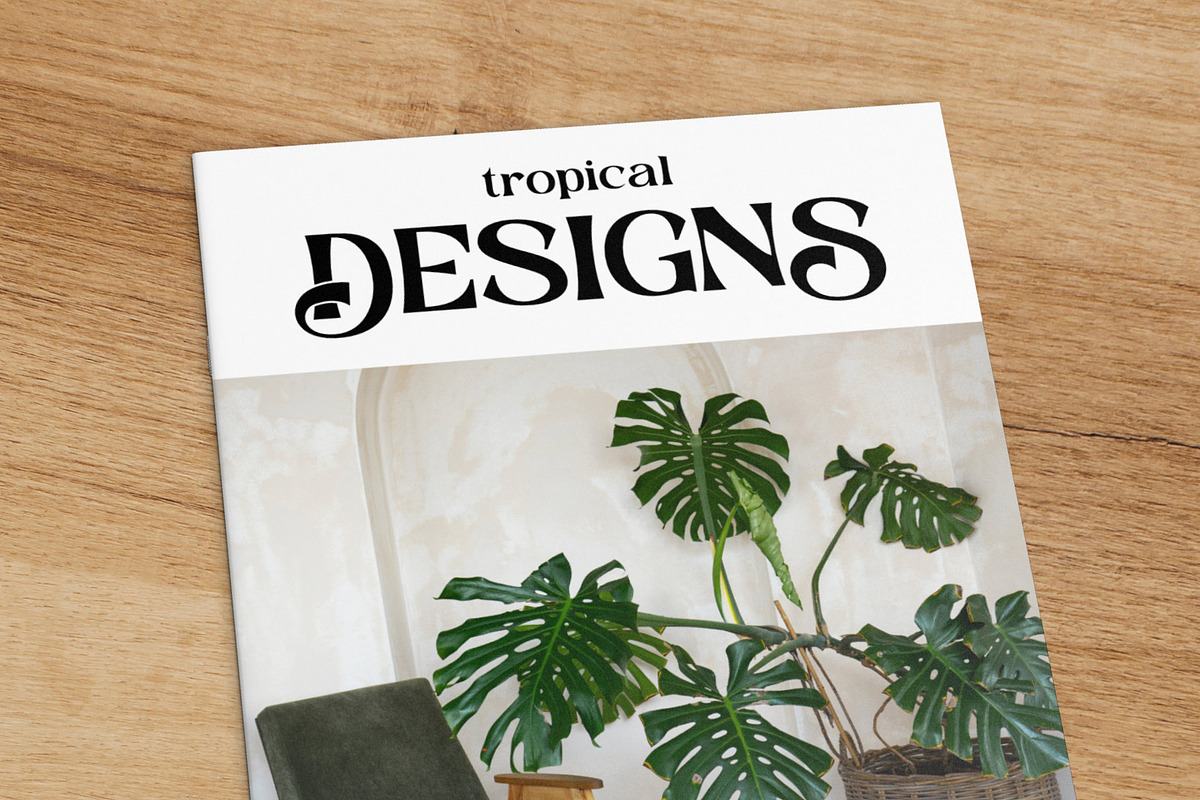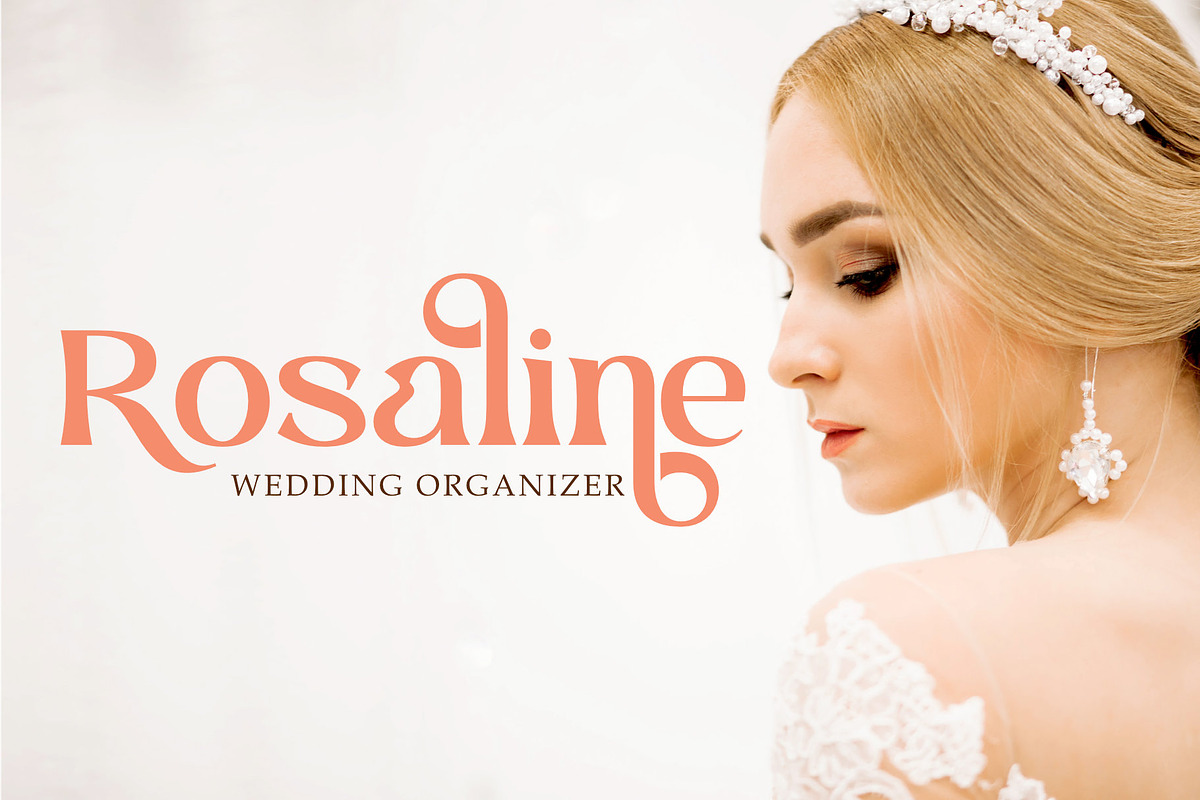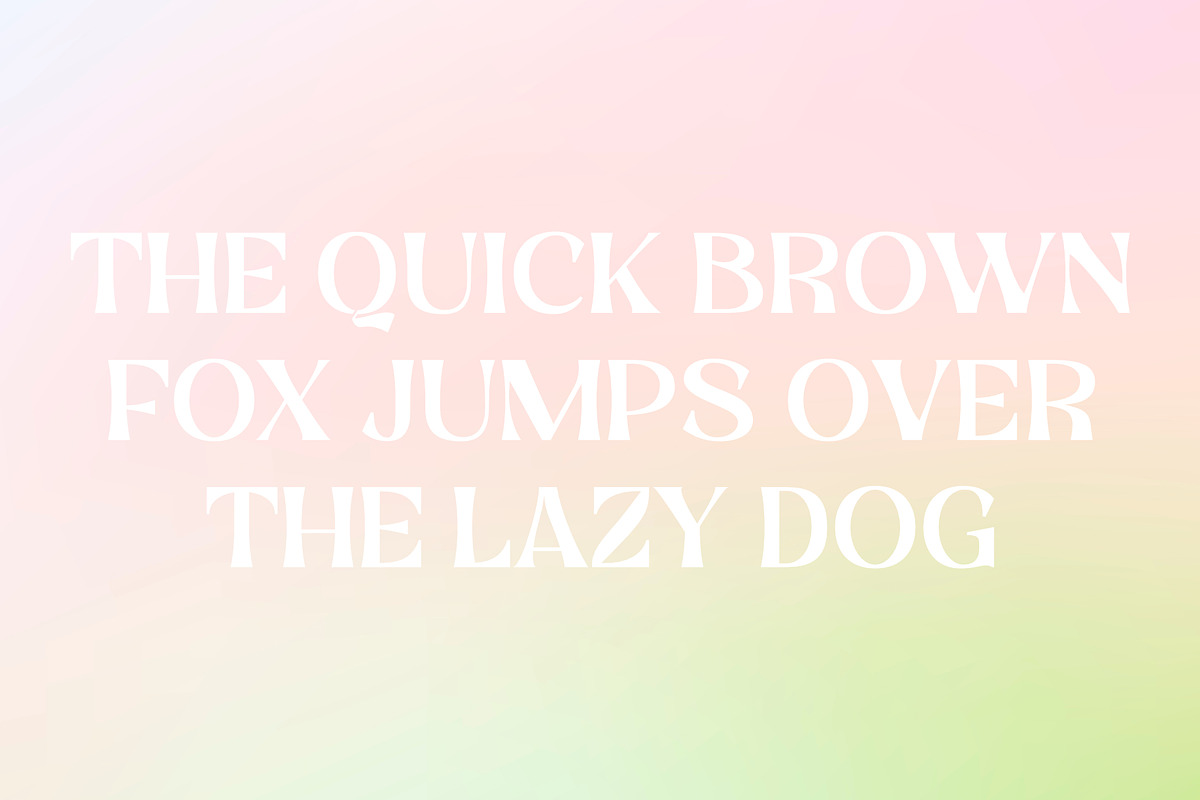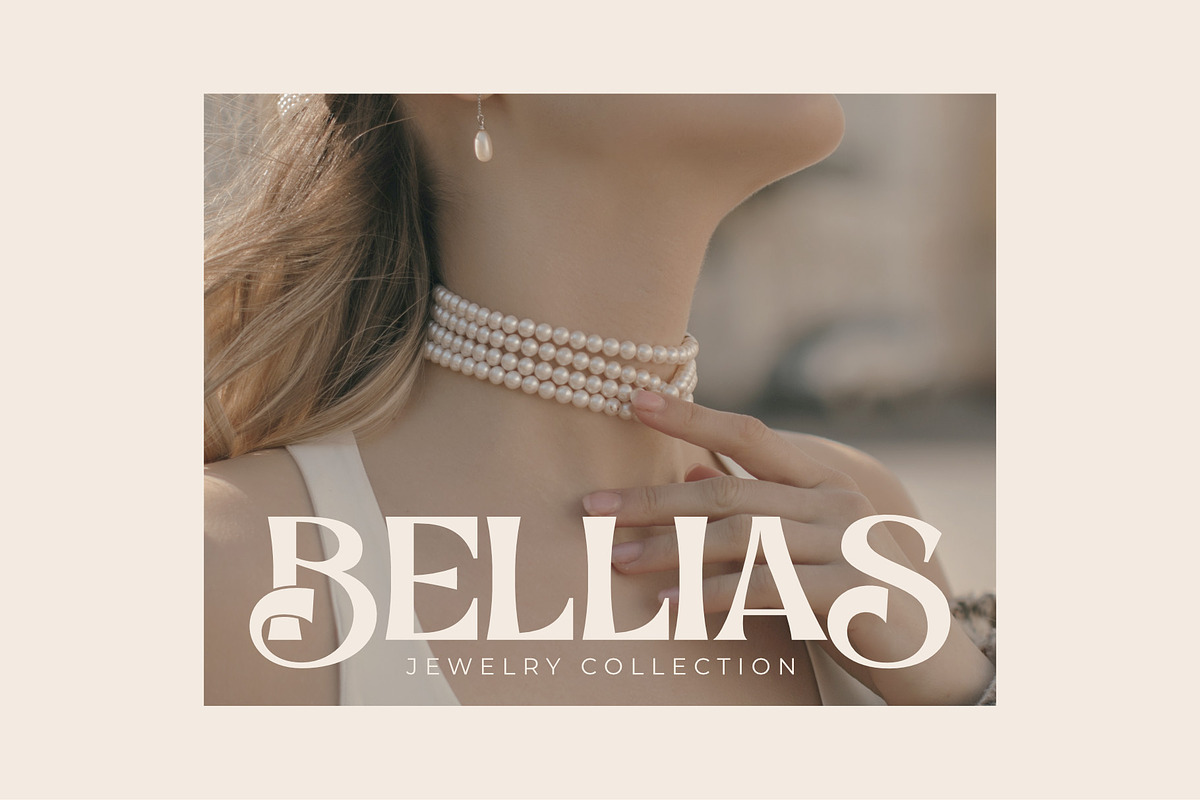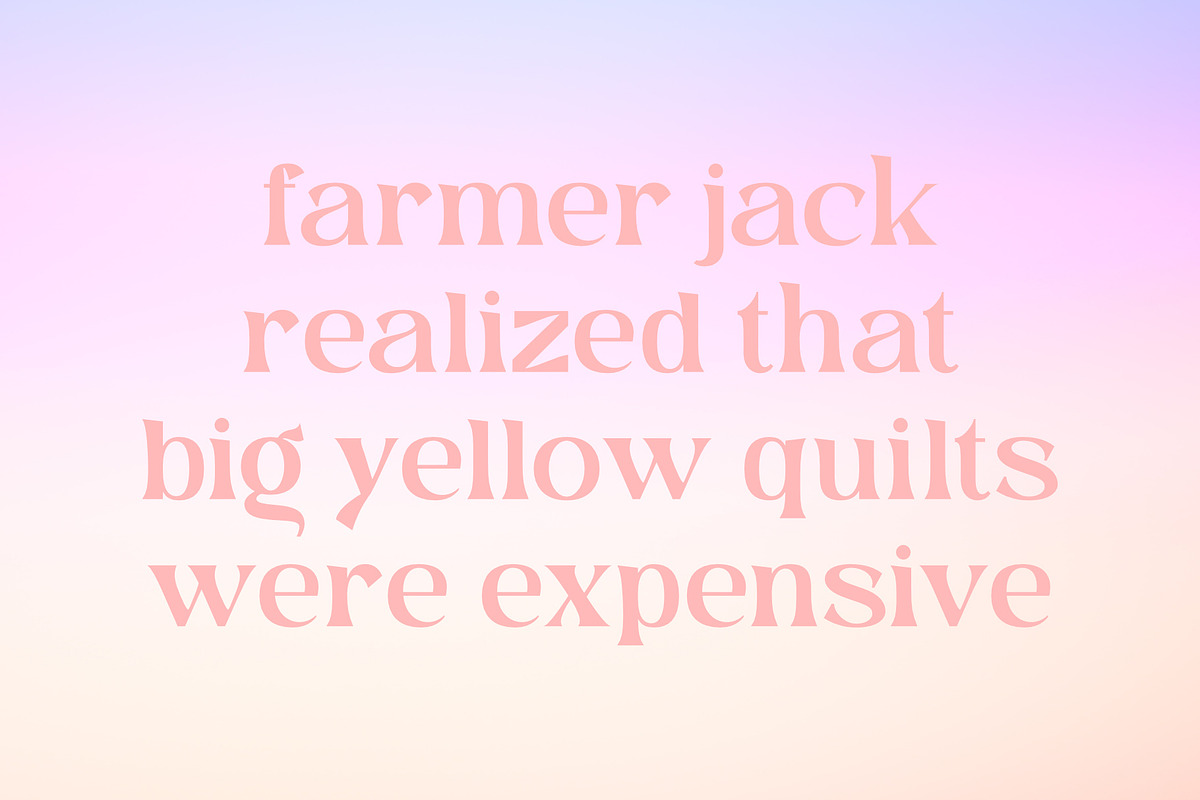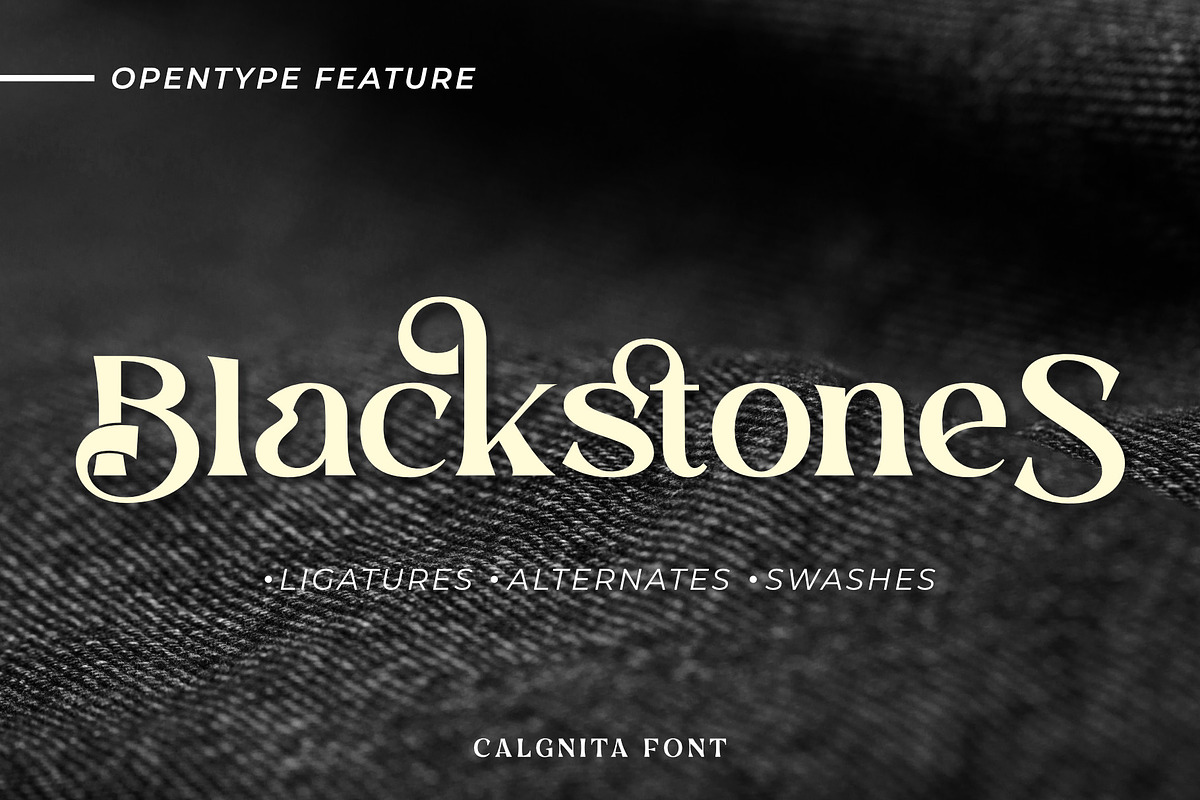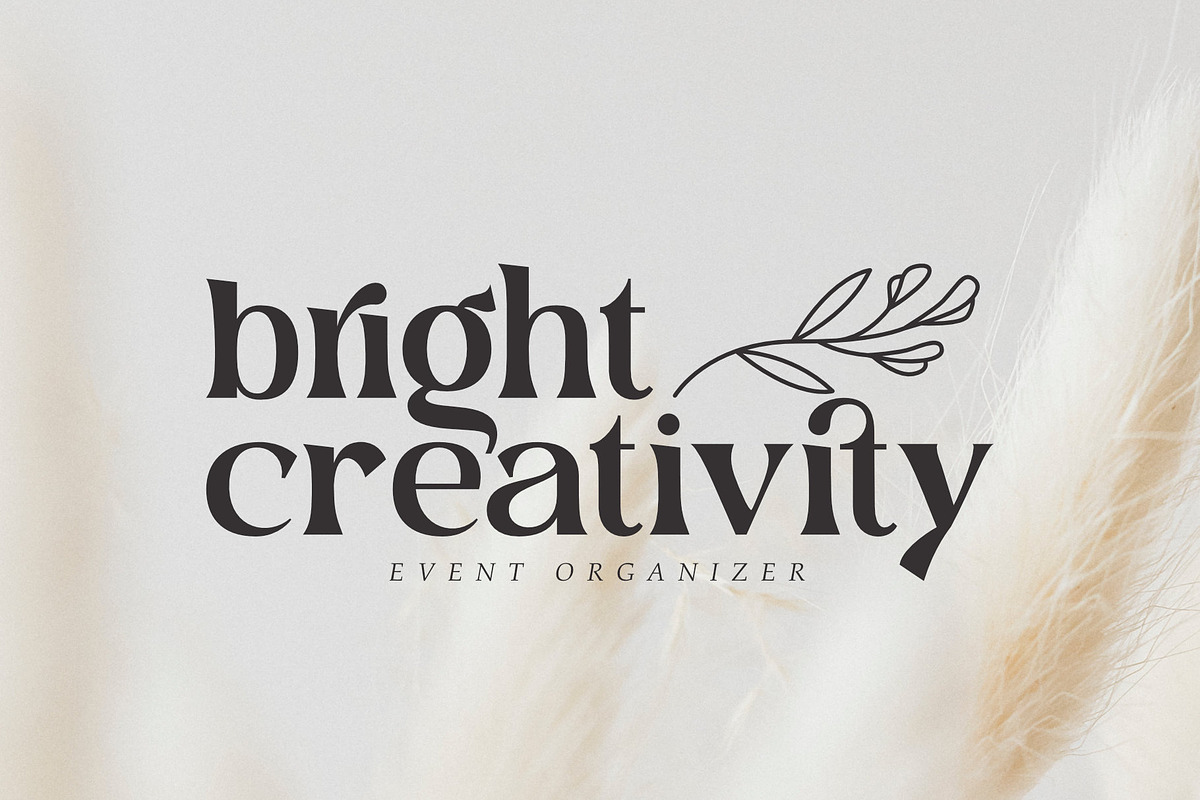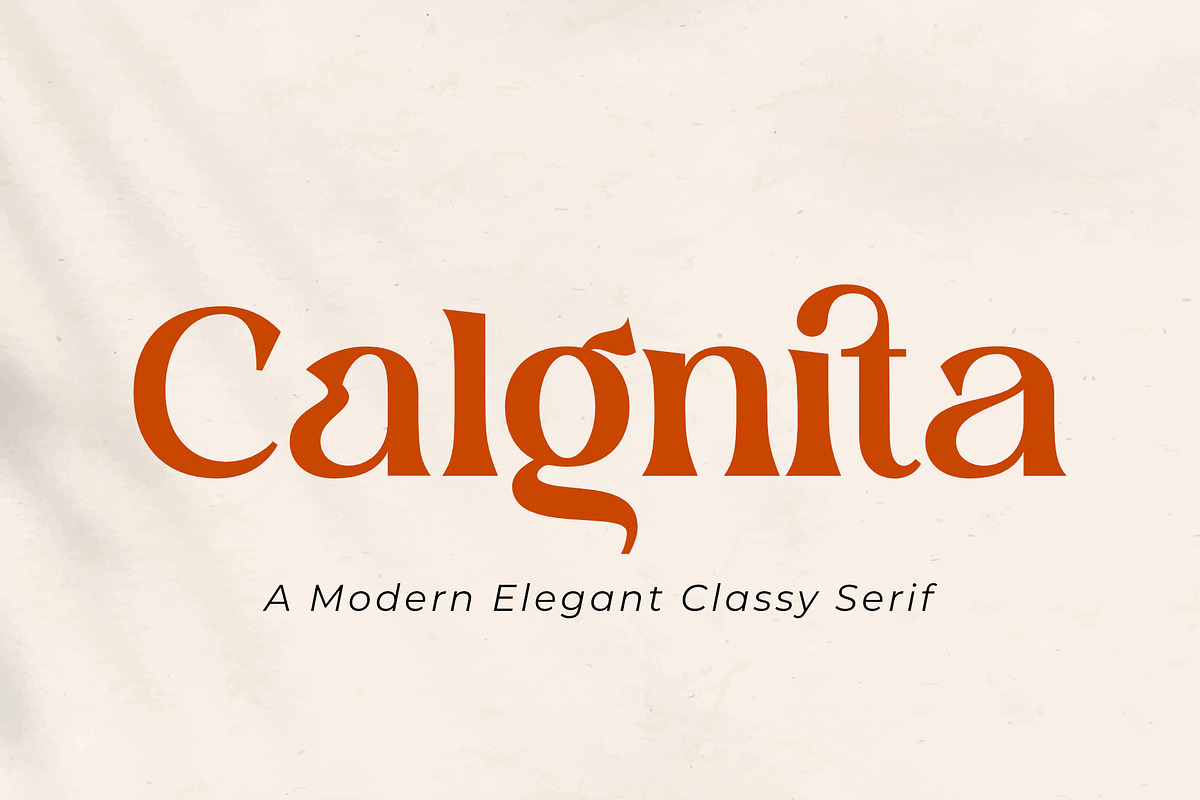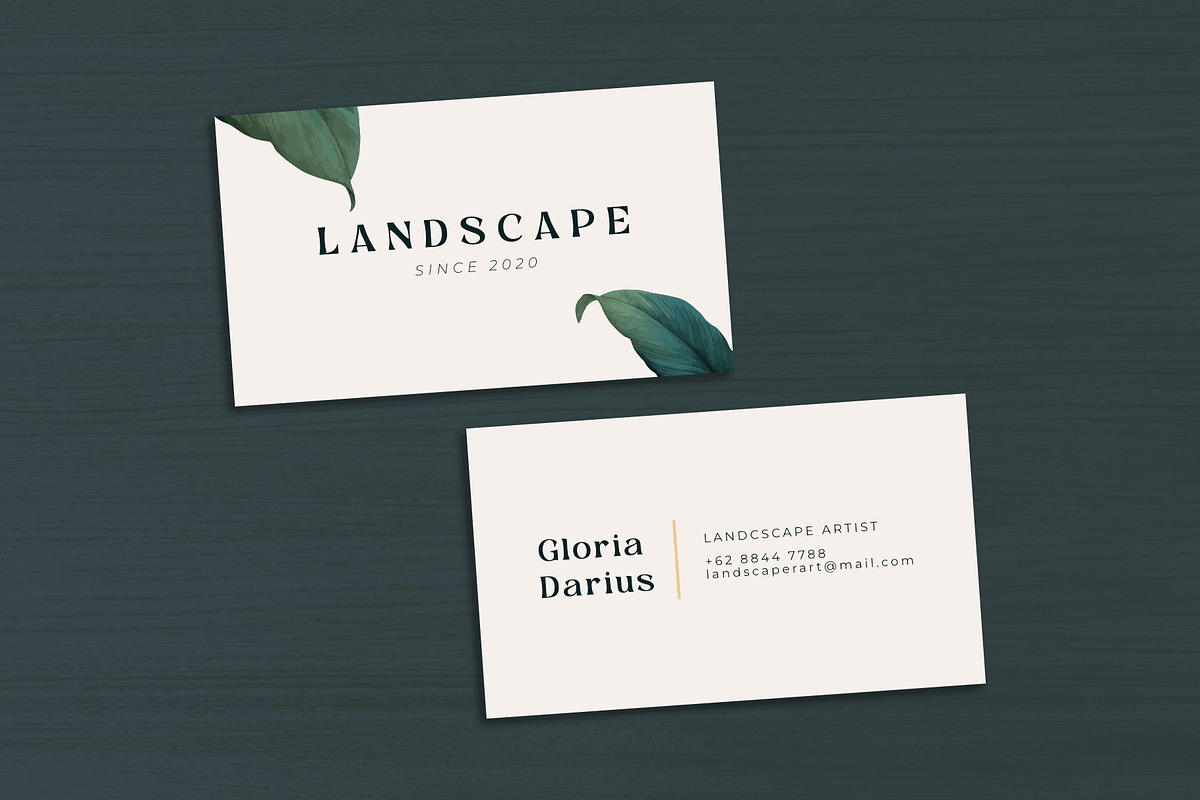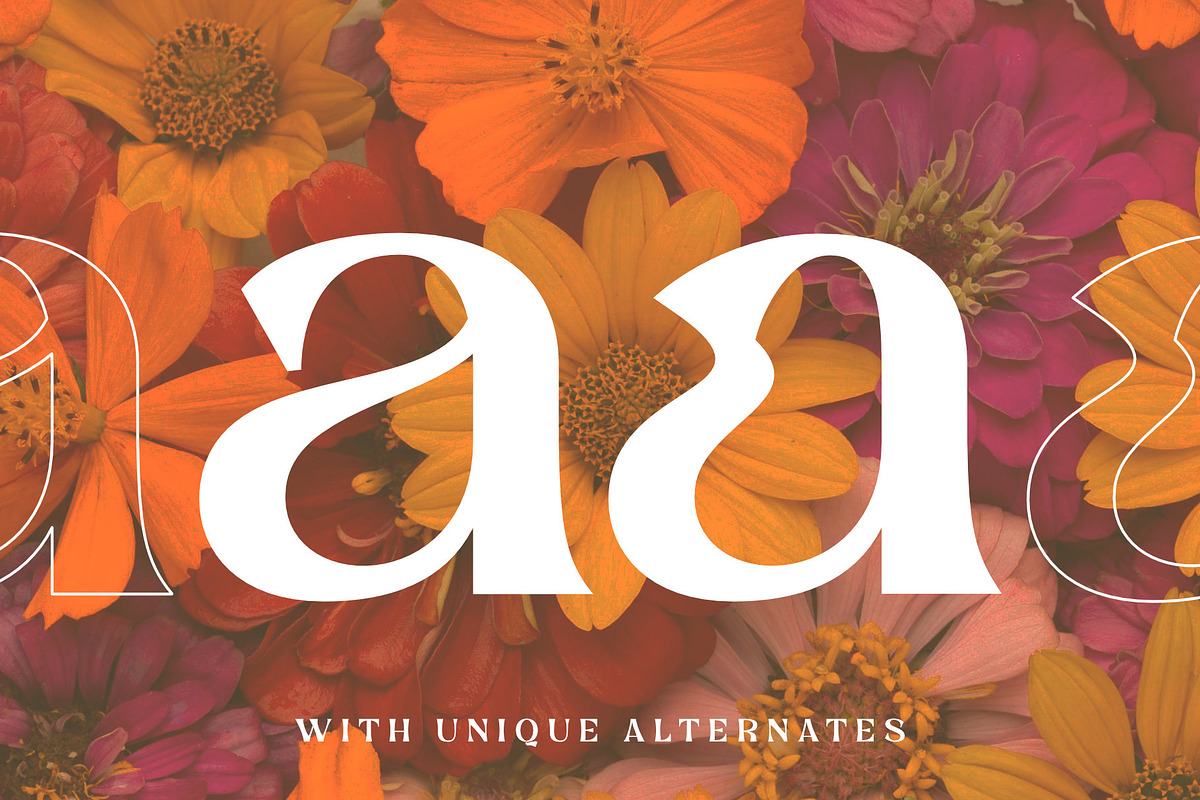
Calgnita | Modern Classic Serif
Introducing Calgnita, a modern classic serif font that embodies elegance and sophistication. With its classical shapes and refined curves, Calgnita is the epitome of timeless design, making it an ideal choice for branding, logotypes, and various design projects. This font is not just a visual treat; it’s a functional asset that enhances the readability and accessibility of your content.
Crafted with precision, Calgnita offers a range of alternates and ligatures, providing designers with the flexibility to create unique and captivating designs. Its versatility extends to both digital and print media, ensuring that your brand stands out in every context. Whether you’re designing a minimalist logo or an elaborate editorial layout, Calgnita’s diverse character set supports your creative vision.
- Alternates and Ligatures